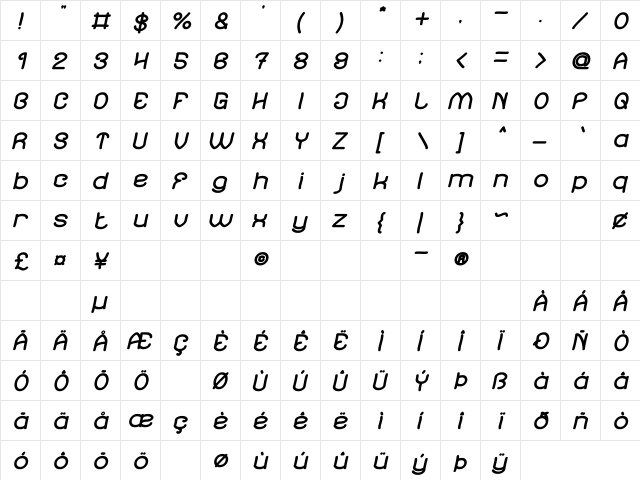
Soup Recipe Bold Italic Font Preview
Design Context for Soup Recipe Typeface
Soup Recipe takes a measured approach to typography — its balanced proportions and neutral character make it a reliable workhorse for both digital and print work. The dynamic lean of this cut emphasises speed and emphasis in any layout. The heavy weight commands attention and anchors typographic hierarchies.
Pro Tip: Try Soup Recipe for annotation and caption copy alongside an upright companion — the contrast in angle creates a dynamic but ordered typographic system.